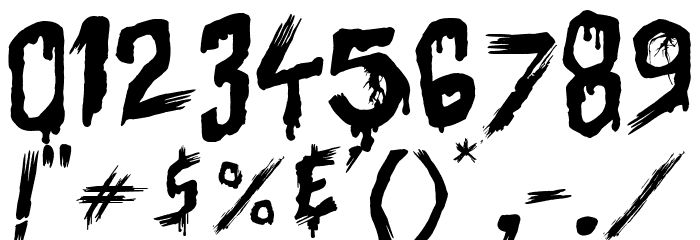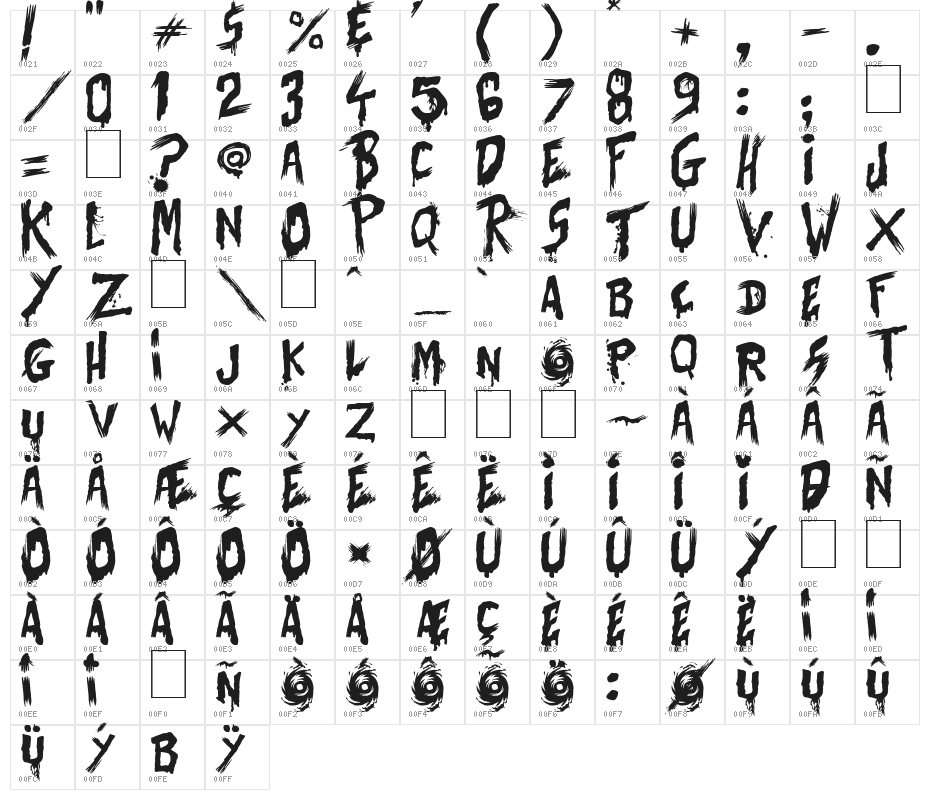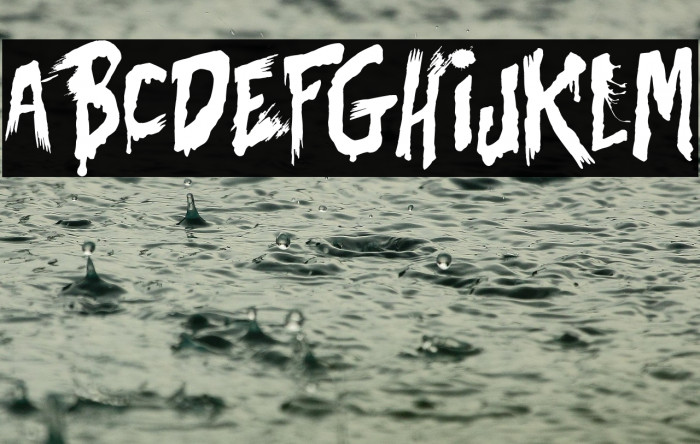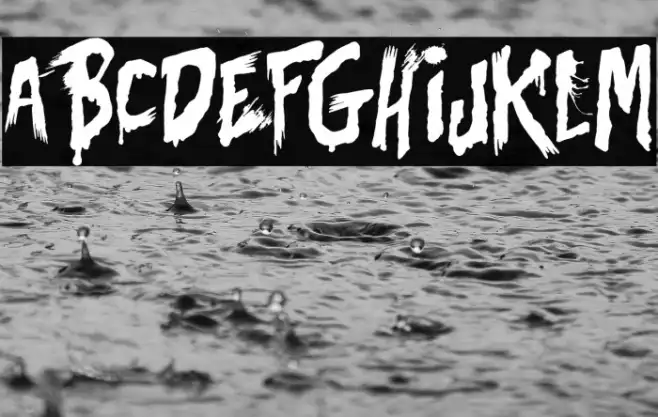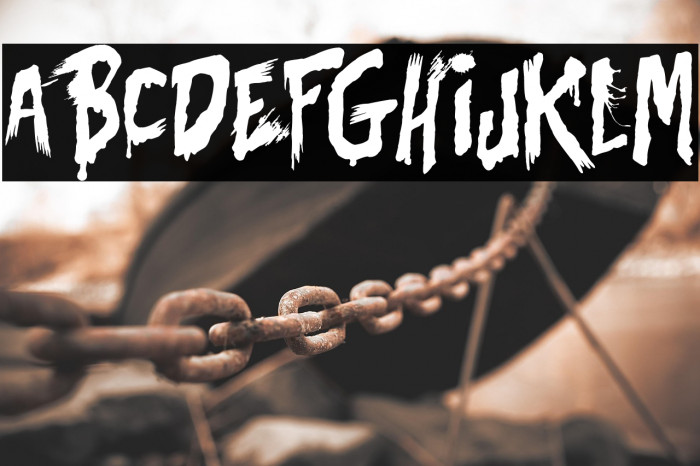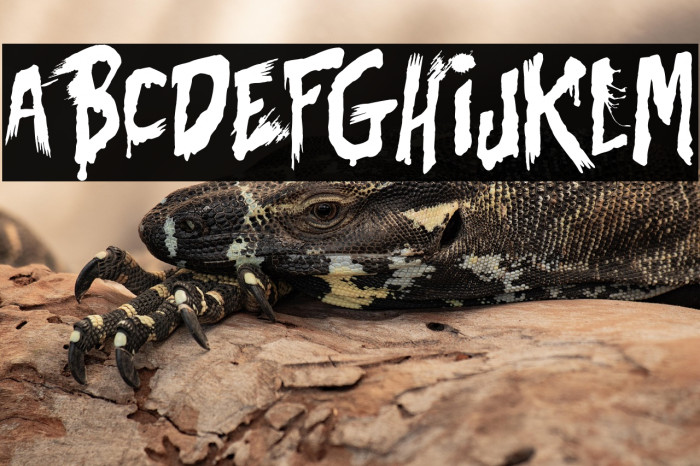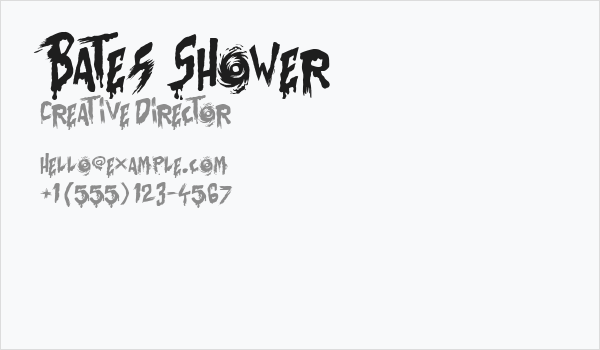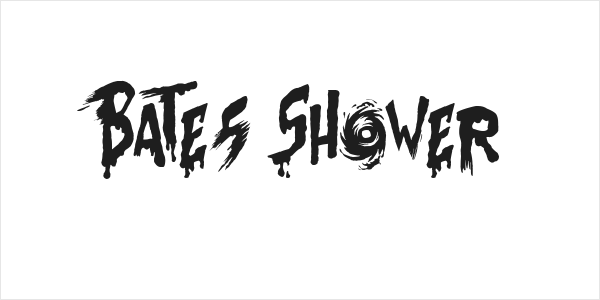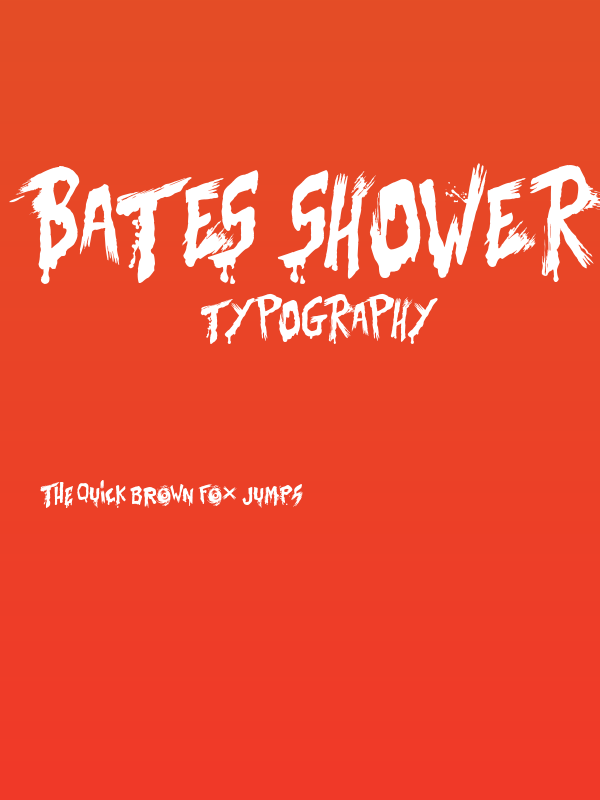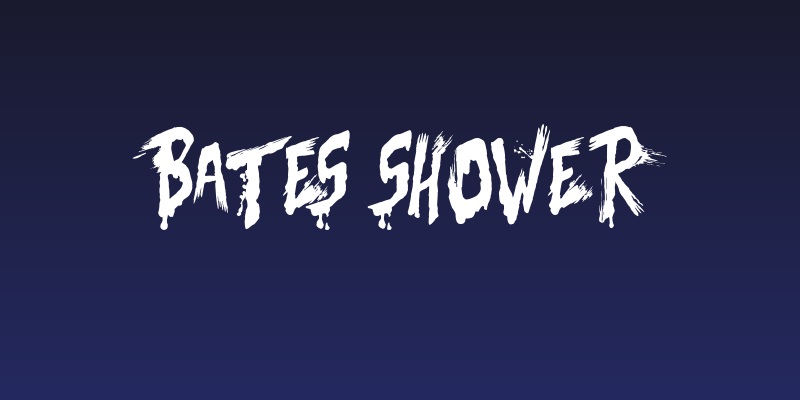
Bates Shower Font
Bates Shower Description
This font features a bold and aggressive style with jagged, brush-like strokes that create a sense of urgency and intensity. The characters are uneven and irregular, giving them a raw and dynamic appearance. The uppercase and lowercase letters maintain a consistent style, with sharp edges and a distressed look. Numbers and special characters follow the same aesthetic, adding to the overall chaotic and energetic feel. This font is ideal for projects that require a strong visual impact and a sense of edginess.
| Use Case | Headlines, Posters, Logos |
| Proposed Projects | Ideal for horror movie posters, edgy album covers, or any design needing a dramatic and intense look. |